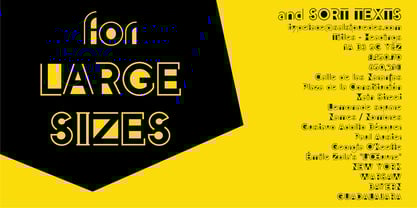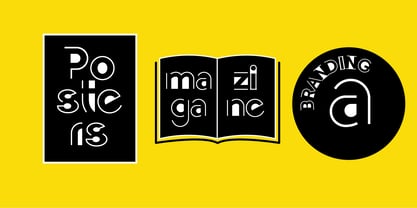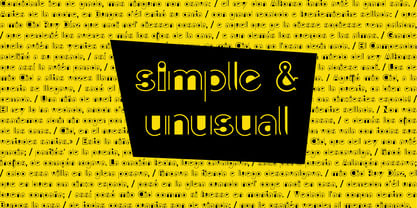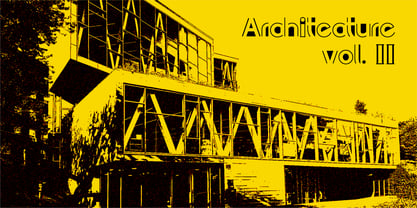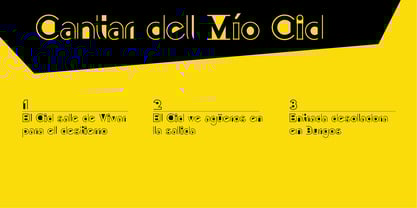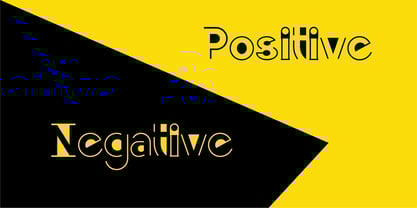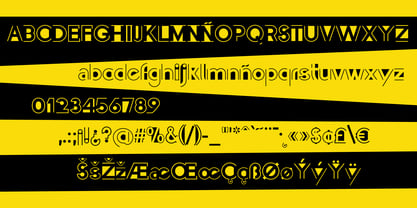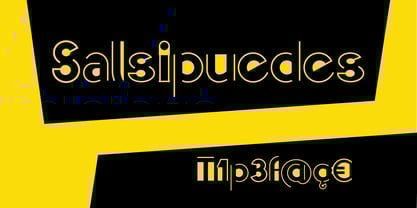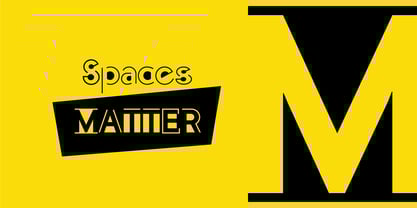
Salsipuedes
The Salsipuedes Font Family was designed by Alberto Martínez and published by Salsipuedes. Salsipuedes contains 1 styles. More about this family
Salsipuedes has been designed in order to work to large sizes and short texts to, for example, posters, magazines and logos. Salsipuedes is a fantasy typeface that shows a negative - positive visual experience. It tries to push the boundaries of the Typography rules. Despite this kind of typographies don't meet the traditional features, Salsipuedes wants to go further and explores unknown spaces. Fonts with animal shapes to depict "wildlife" or "pets"; rounded square shapes to depict the idea of "futuristic"; rough strokes to reinforce the idea of "natural writing" or even cultural movements such as "grunge" or "heavy". But what if creating a new font thinking of the no-shapes, the no-structure? This typeface is based on what typographers discard: space. How to graphically represent space and make it work as a communication system. As Adrian Frutiger said, spaces are important.